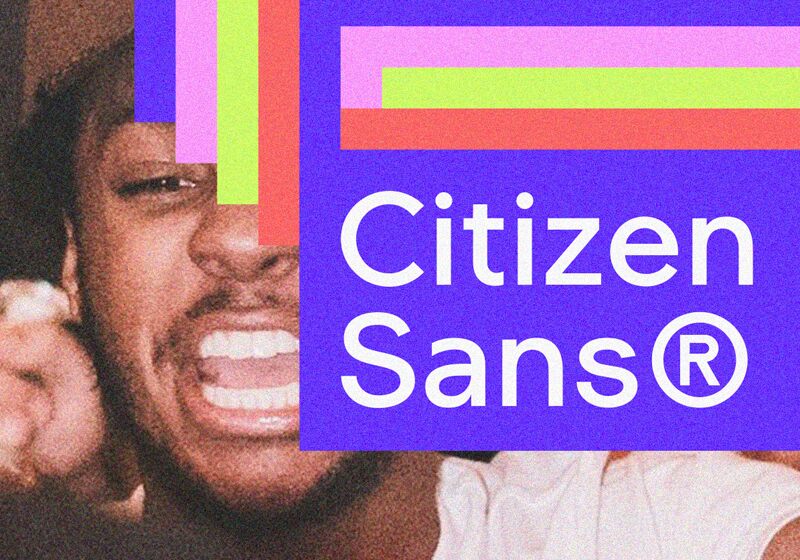
Citizen Sans font
Citizen Sans
Luke Ferrand
A simple, modern, and universal sans serif font that enhances your design projects is available for free download. This font combines clarity with versatility, making it suitable for a wide range of applications, from web design to print media. With its clean lines and balanced proportions, it ensures readability while maintaining a sleek appearance.